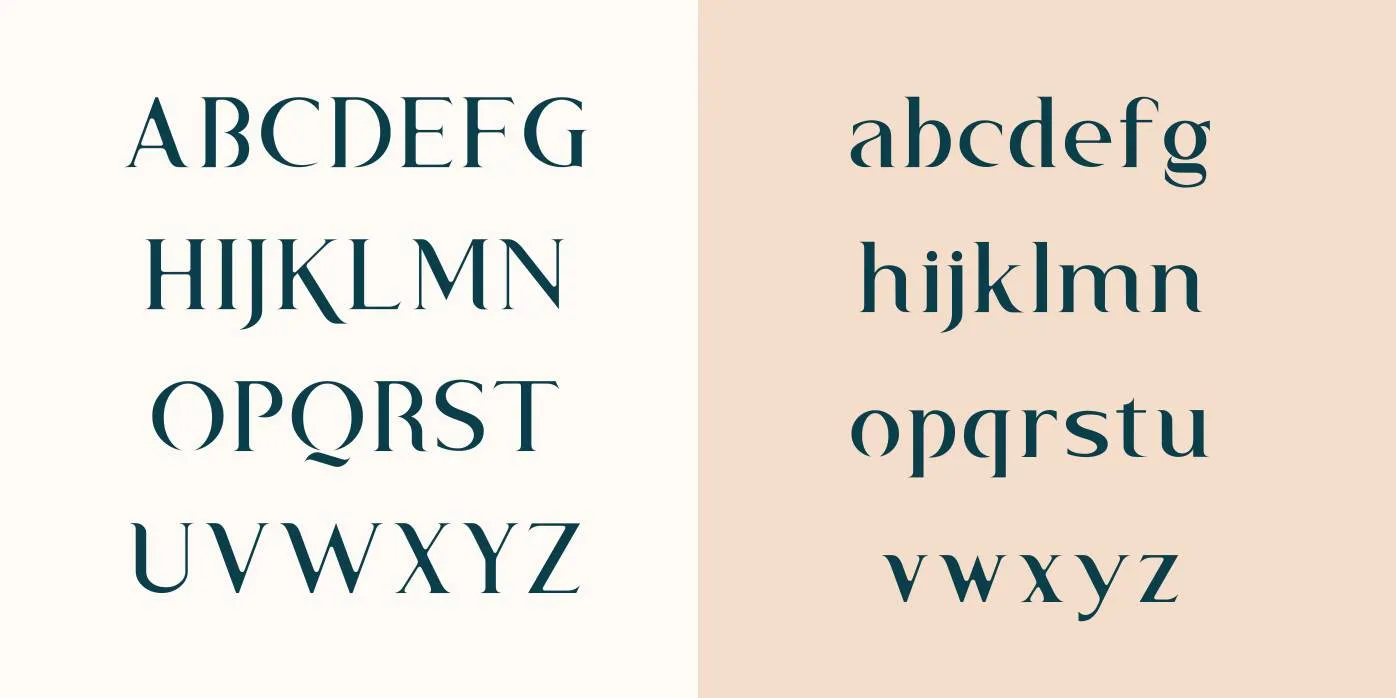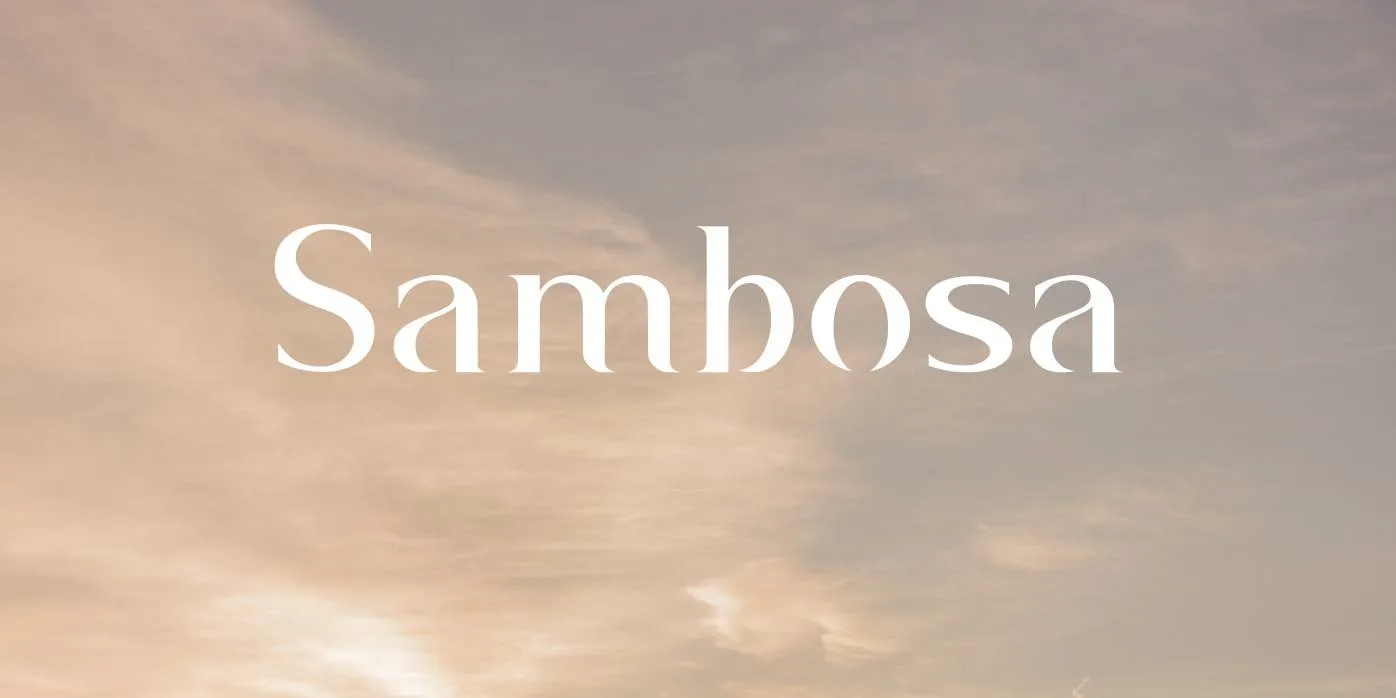
Sambosa Font
Today we talk about an amazing texture Sambosa Font. This stunning font is designed by Hanief Farandi and manufactured by Hanzal Graphic Studios. You can make different designs by using it. It contains 274 characters, 236 glyphs, and 2048 units per Em.
The weight and the width of the font are medium (normal). It has many styles and can be used to make eye-catching ideas. This modern font has different styles like regular, bold, Italic, and Bold Italic which makes it unique and you can utilize it in your designs. Embedding rights are allowed for the permanent installation of this font.
You can copy and paste your text easily by using it. You can also use it for pairing with other fonts like mightype font to give a more attractive look to your projects as well. Usage It has many different features which can be used to design many projects. This font has characters, symbols, numbers, small letters, capital letters, punctuations, and special characters.
It has high readability and you can use it for making attractive headlines and titles. You can make amazing logos by using this font. You can also use it in the body text as well as for small-size projects. It is good for making wedding invitations, blogs, and social media posts.
This stunning font is considered a suitable choice for both print and digital media. You can make thumbnails on YouTube by using this font. Website headers and Blogs can be made in a very attractive look by using this font. For branding, product packing, writing shop names, and graphic and website designs you can use it.
What style does Sambosa Font have? It is a very neat and clean Serif font. It has high readability and you can use it for making so many different projects. Is Sambosa Font a modern Font?
This font is considered a very modern font you can make many different designs by using this font. It gave a very nice and attractive look.